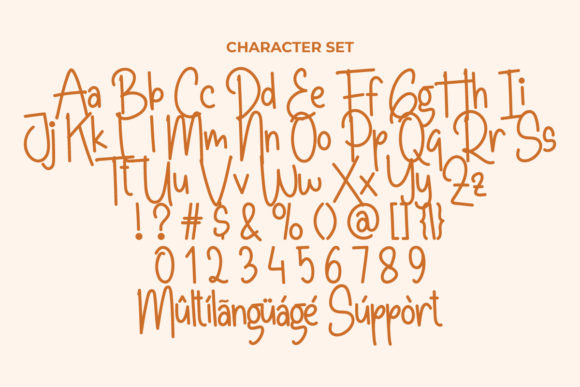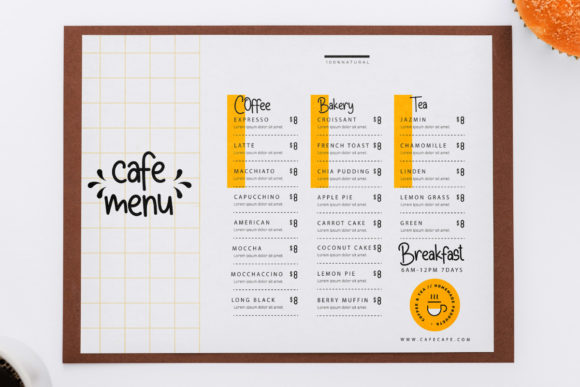
Fresh Juice Font
db-ku.com - Script & Handwritten -- Fresh Juice is a cute, simple and friendly handwritten font Its appearance will add a creative and realistic impression to any of your products that require a classic yet adaptable style. This font is PUA encoded which means you can access all of the glyphs and swashes with ease!